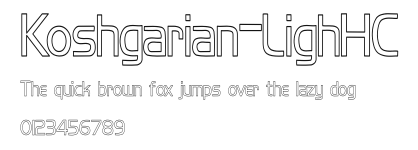
Koshgarian-LighHC Preview
• Font Name: Koshgarian-LighHC
• Full Font Name: Koshgarian-LighHC
• PostScript Name: Koshgarian-LighHC
About Koshgarian-LighHC.ttf
Koshgarian-LighHC.ttf is a modern, elegant sans-serif font designed for ultimate readability and visual harmony. Perfect for branding, headlines, web design, and print materials.